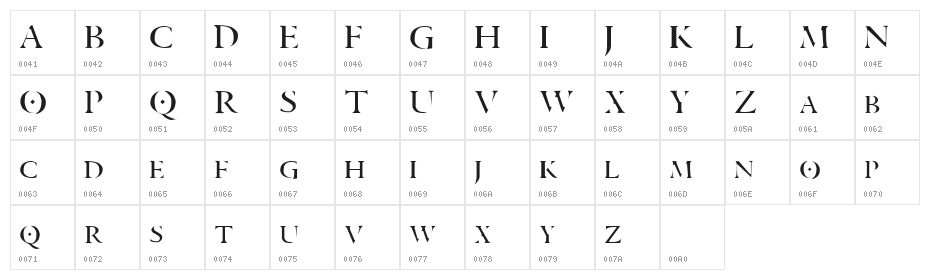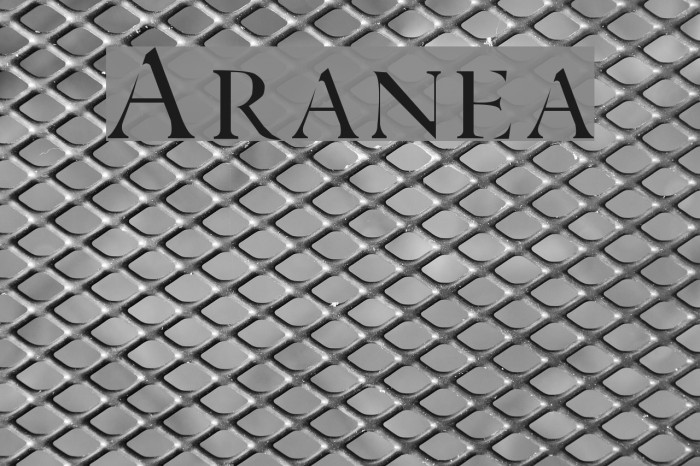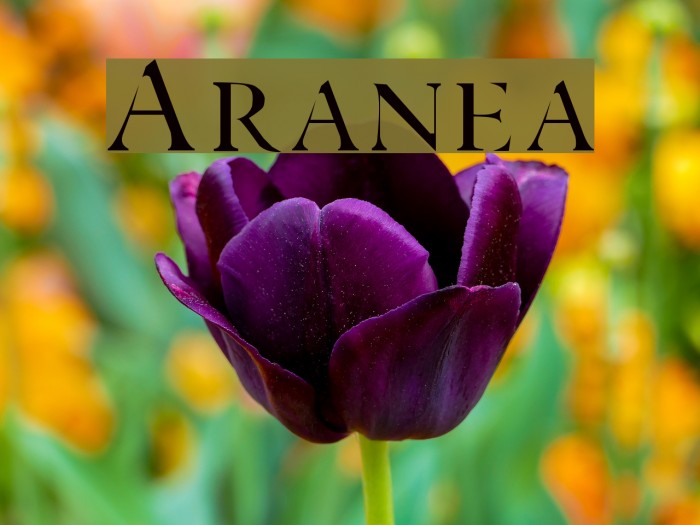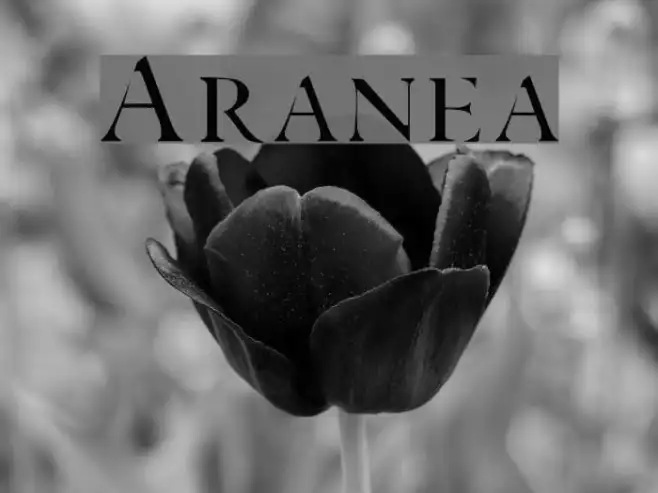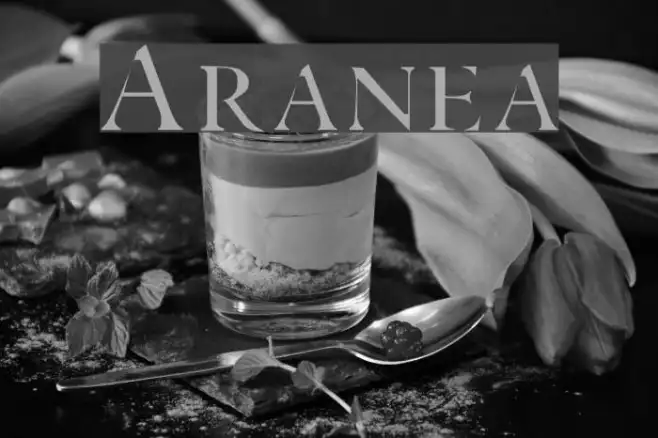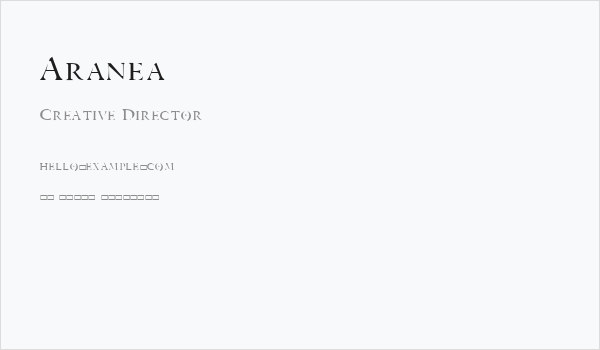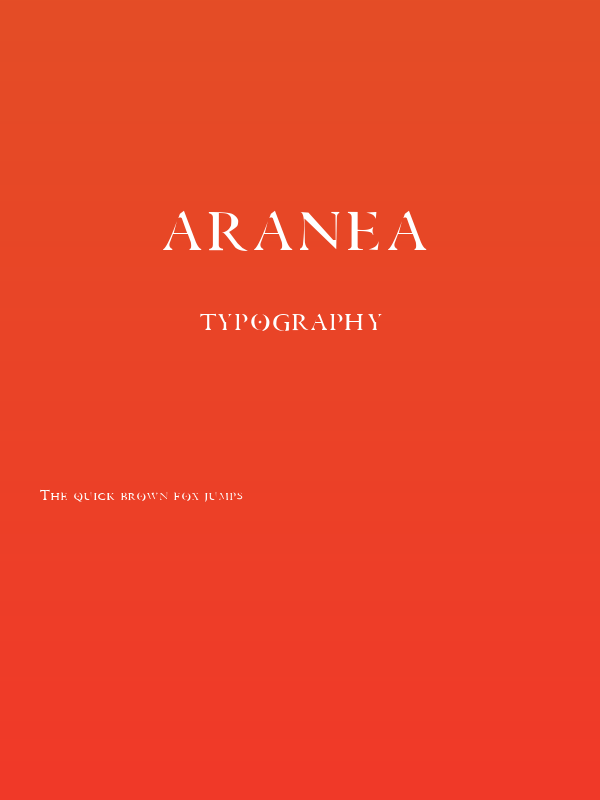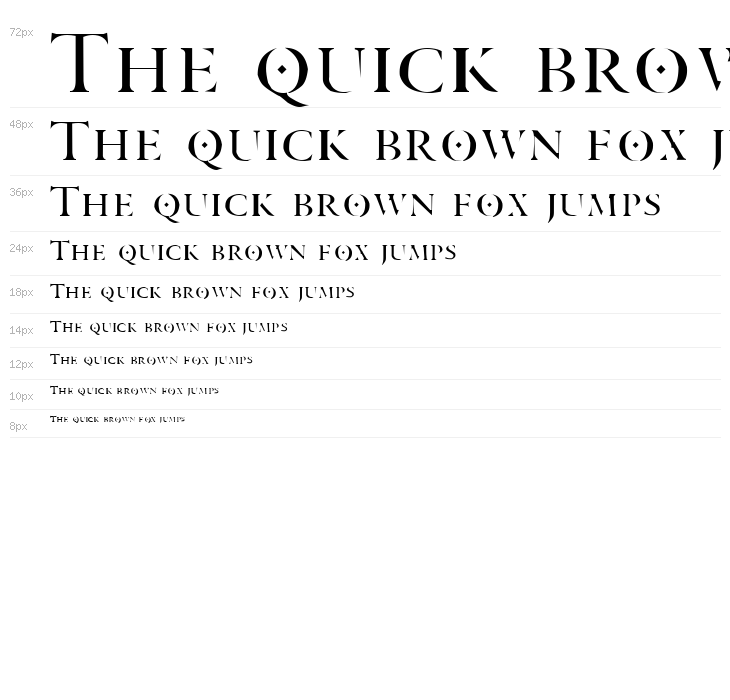
Aranea Font
Aranea Description
This font features a striking and bold design with high contrast between thick and thin strokes, giving it a dramatic and elegant appearance. The sharp serifs and unique cutouts within the letters add a modern twist to a classic serif style. The uppercase letters are particularly distinctive, with some characters featuring circular cutouts that create a sense of movement and intrigue. This font is well-suited for projects that require a touch of sophistication and flair, making it ideal for branding, headlines, and editorial design.
| Proposed Projects | Ideal for branding, editorial design, and headlines that require a sophisticated and modern touch. |